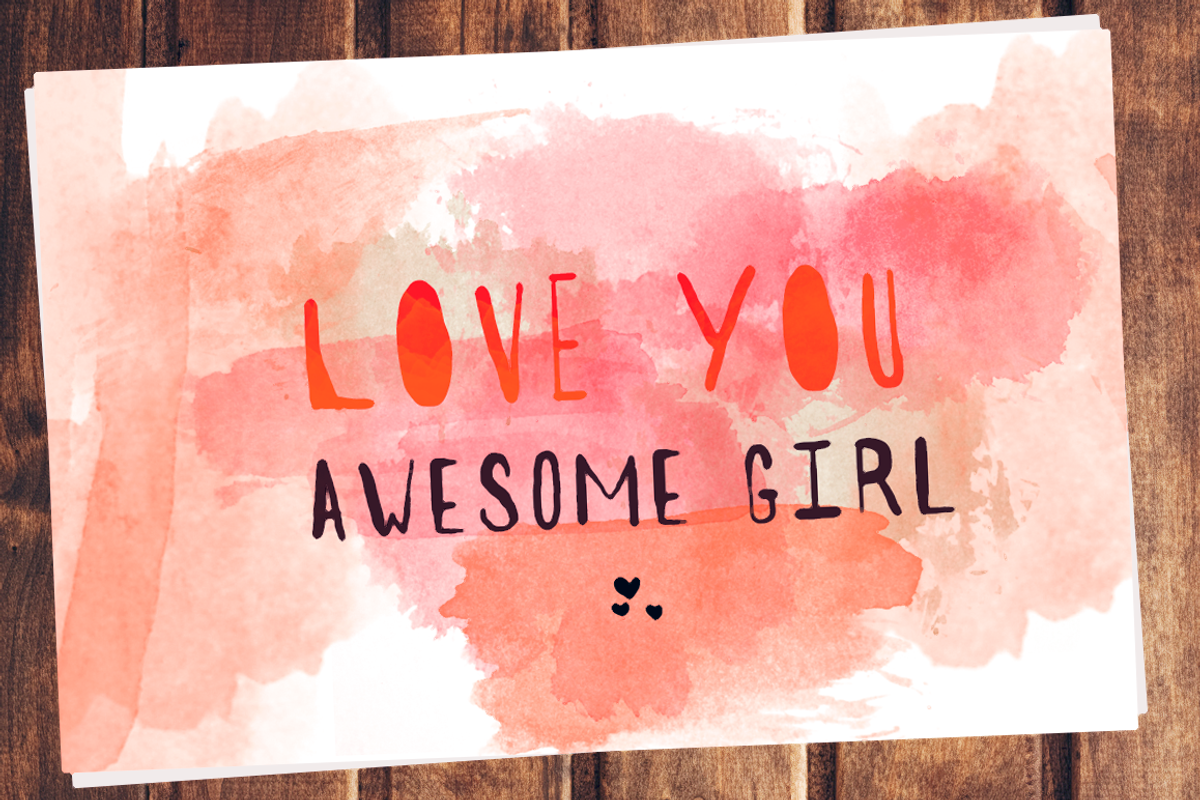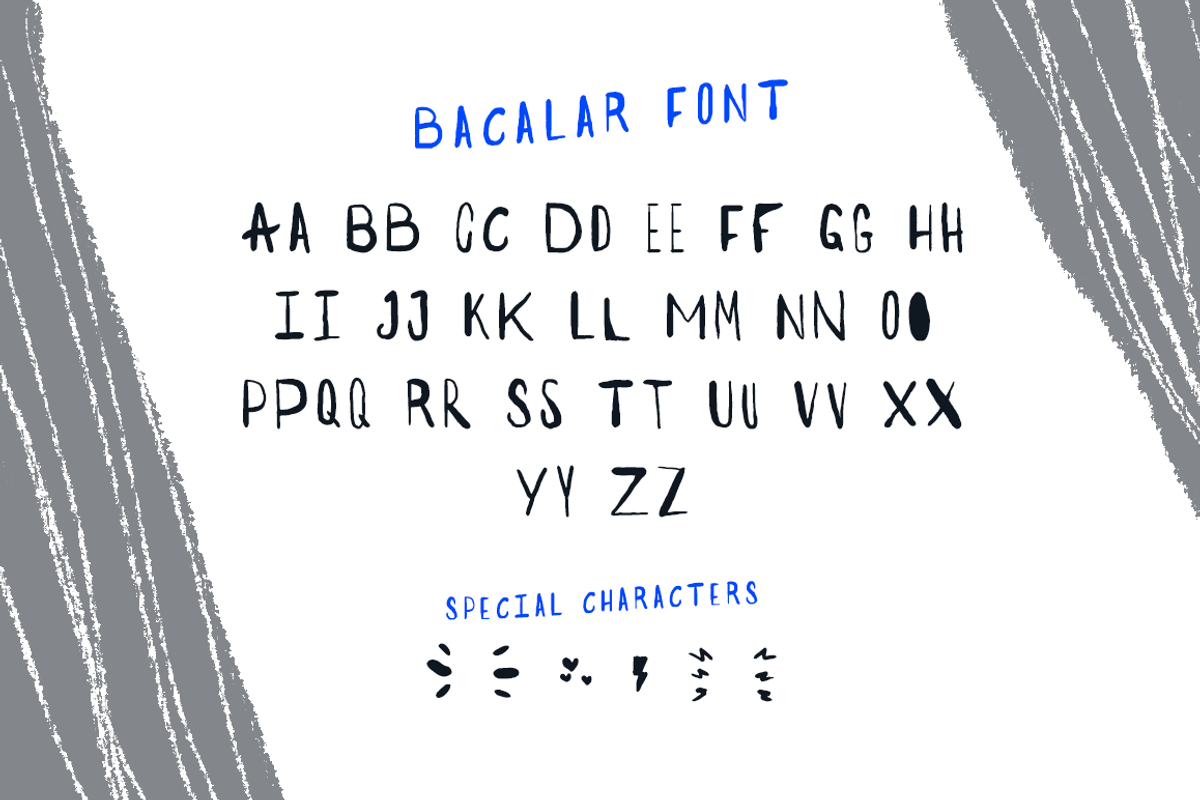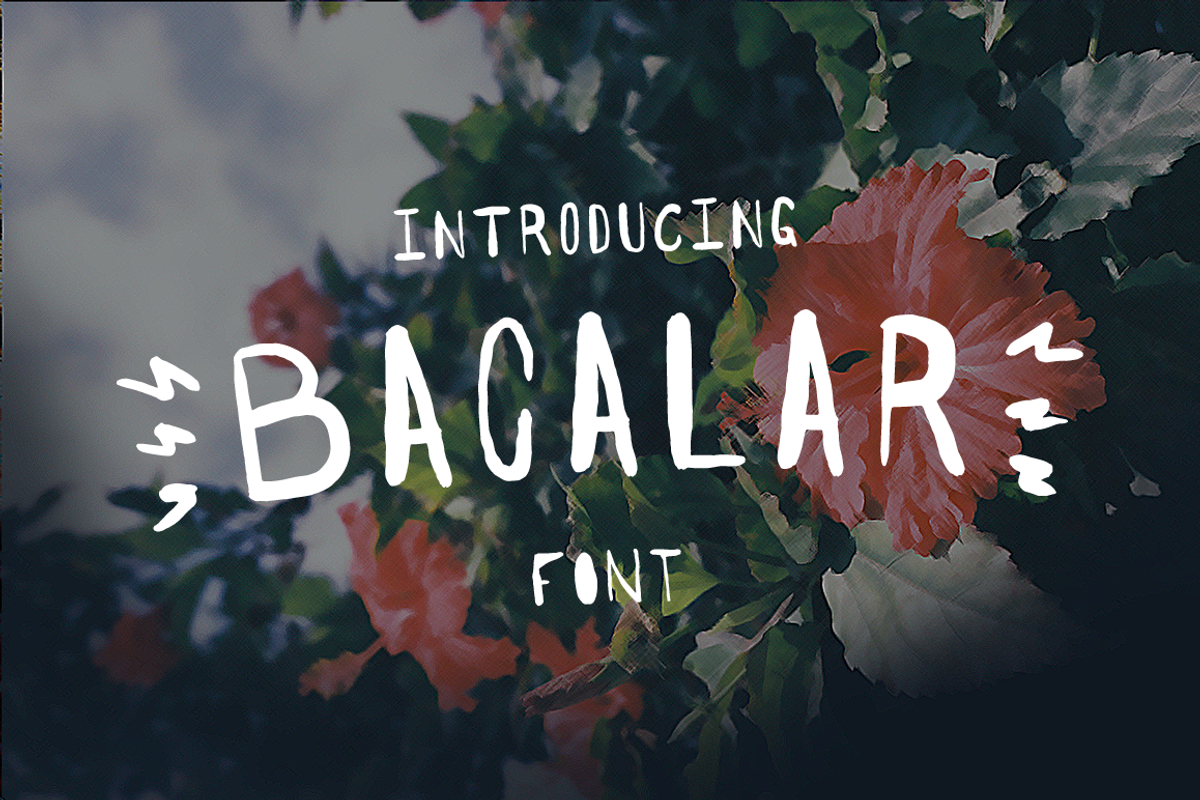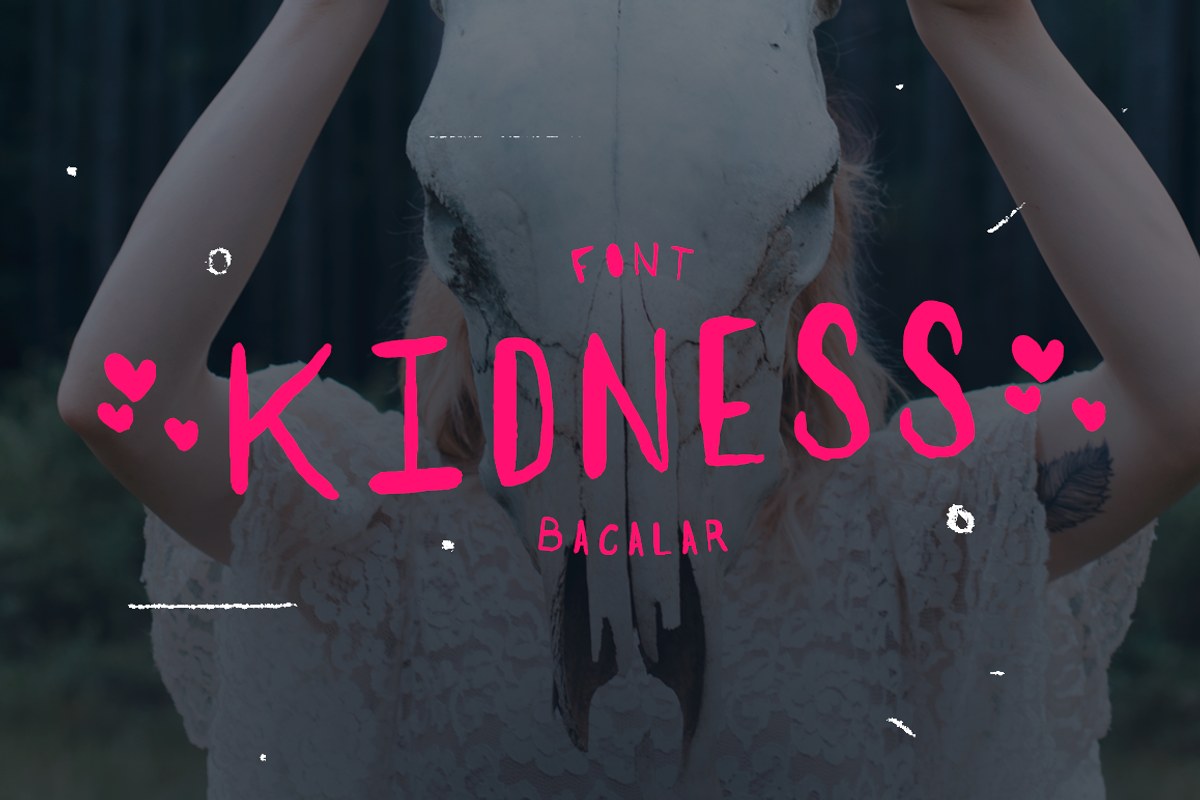
Bacalar Font
Bacalar Font by Landdy is a font selected for branding, posters, packaging, typography.
Why Bacalar Font is worth a look
Bacalar Font by Landdy fits naturally into Branding, posters, packaging, typography.